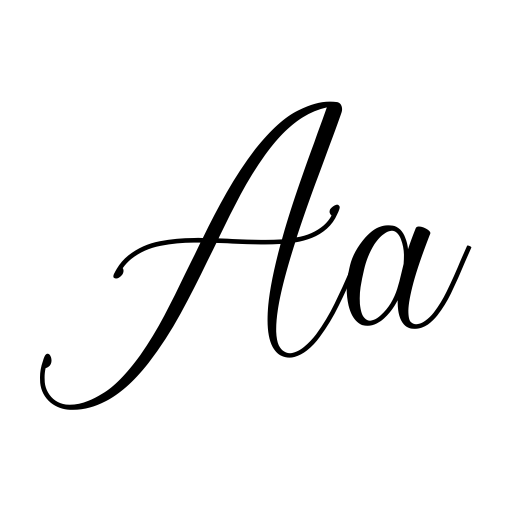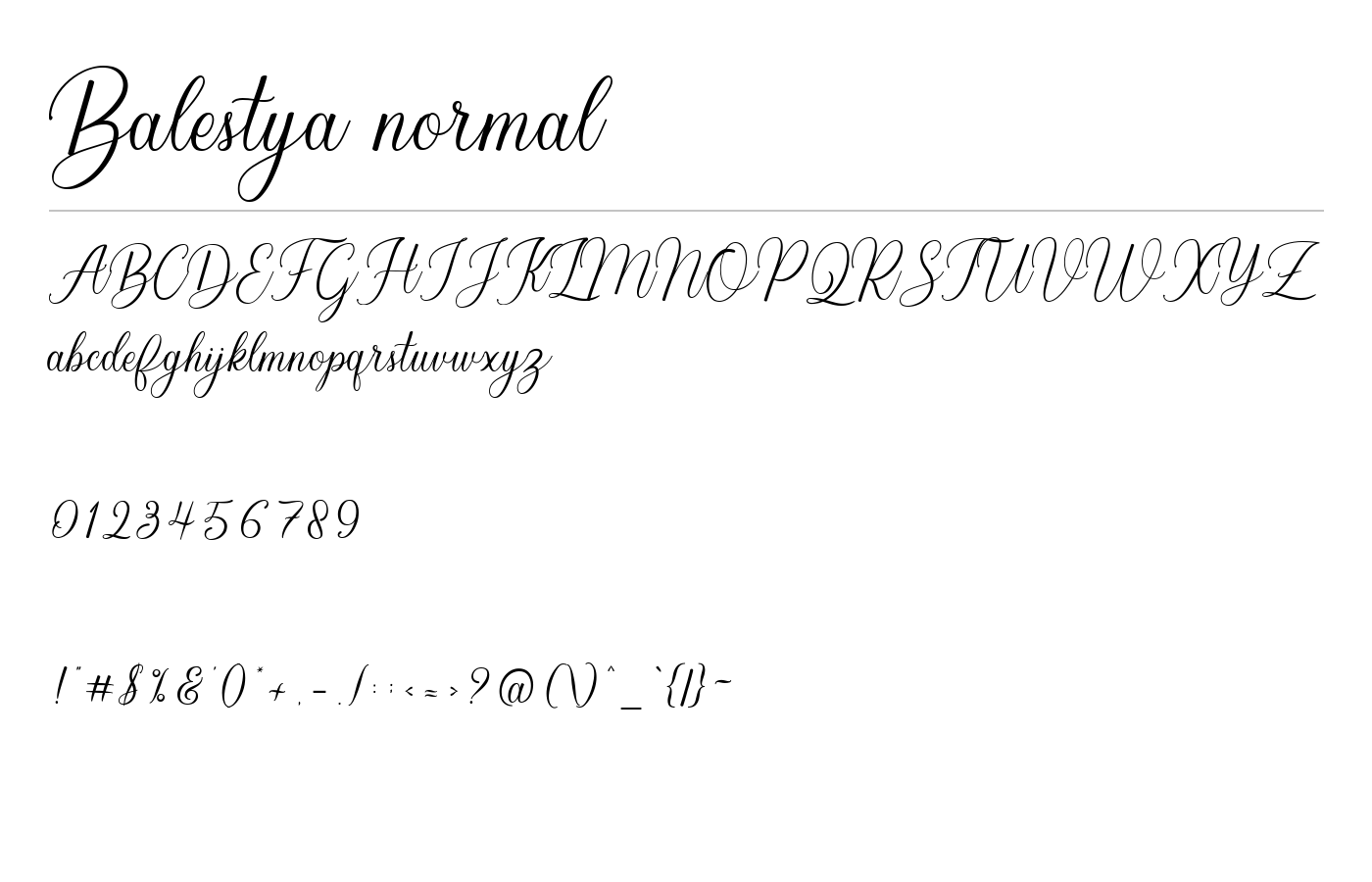
Balestya Normal is a delicate script font with elegant, flowing strokes that evoke a handwritten, calligraphic style. Its slender, graceful letterforms and subtle flourishes make it perfect for feminine branding, wedding invitations, and sophisticated editorial designs where a touch of refined charm is desired. This font works best in large sizes for headings or logos, adding a sense of elegance and personal warmth.
Balestya normal Font
About Balestya normal Font
| Font family | Balestya normal Font |
| Designer | Faisal Tanjung |